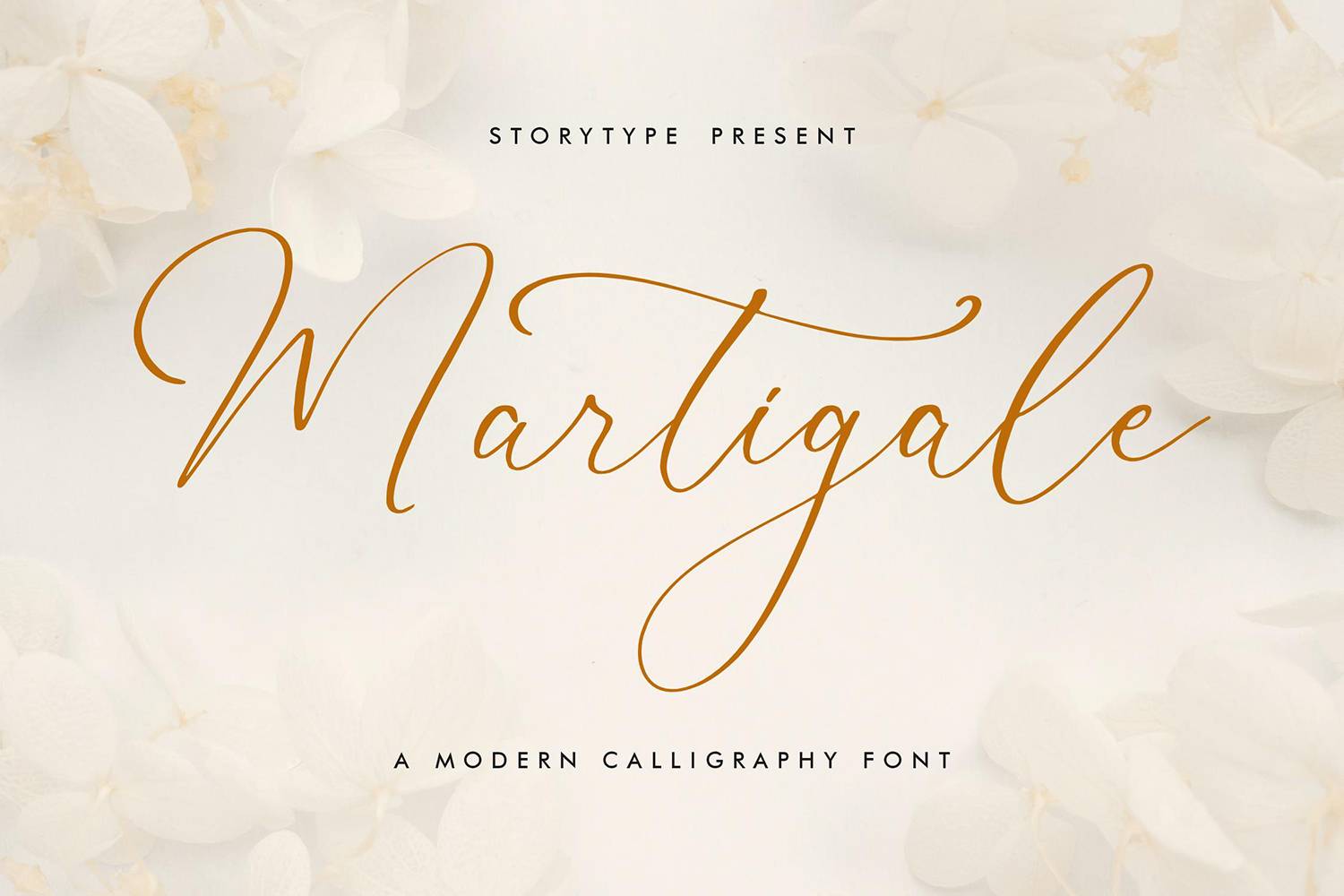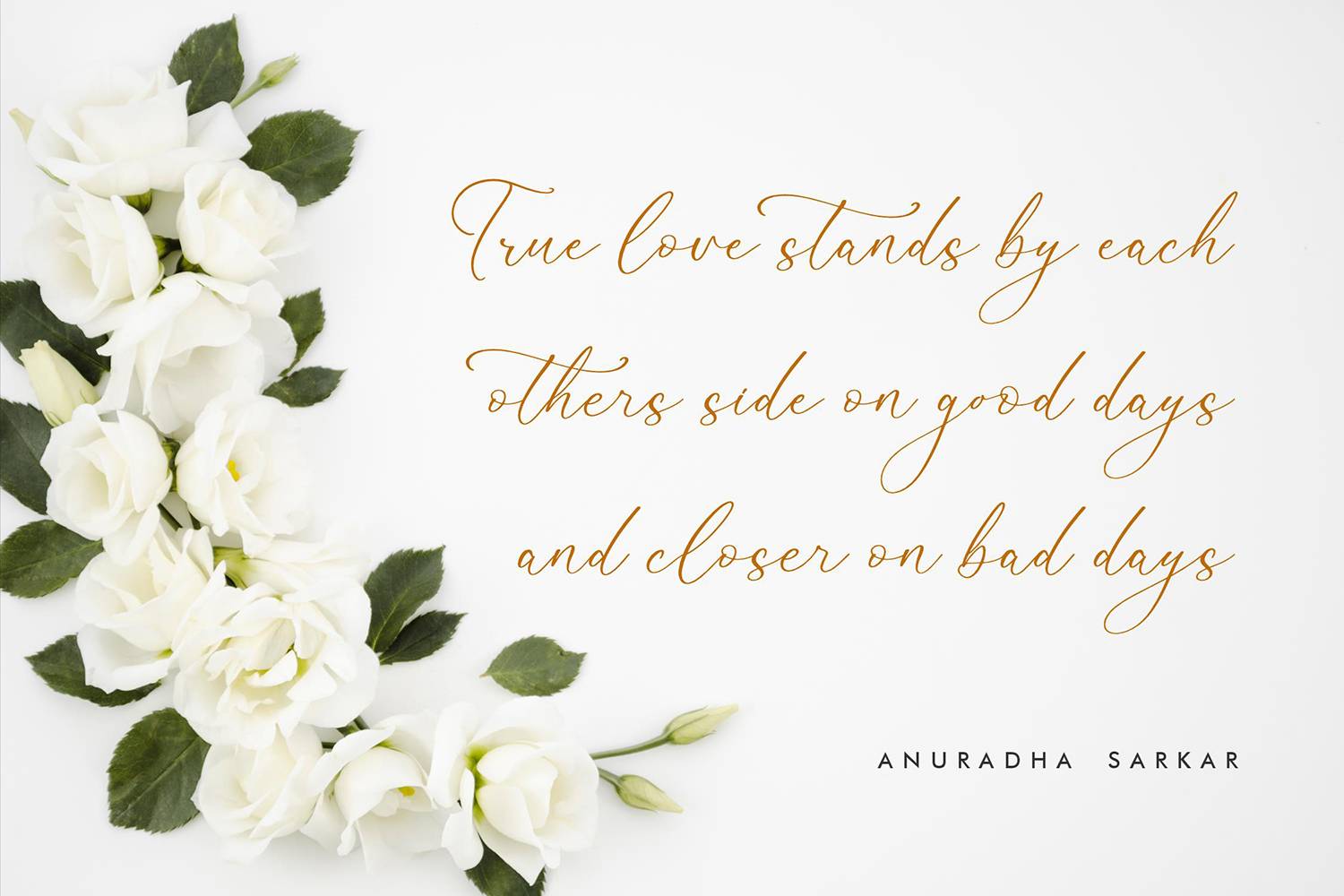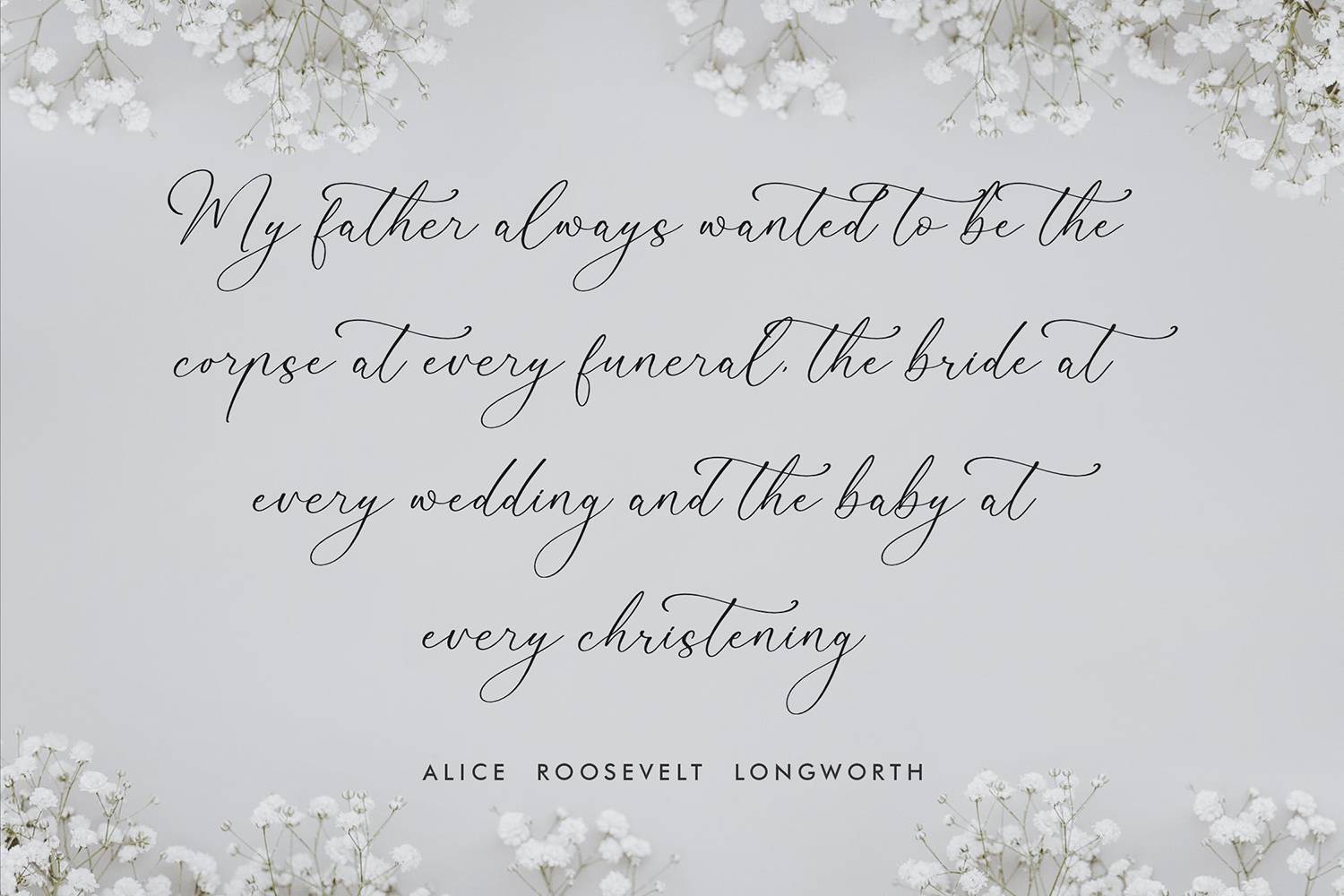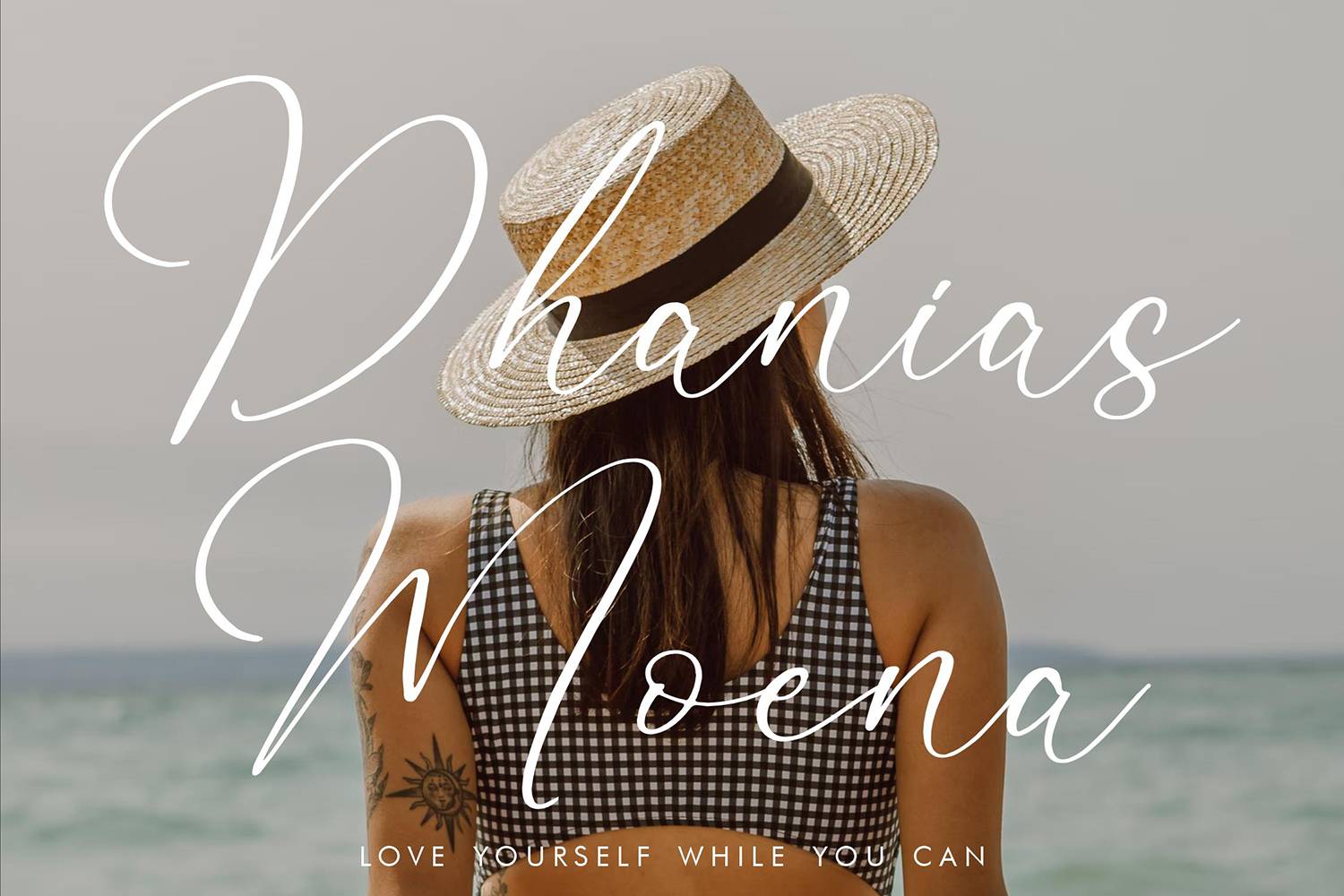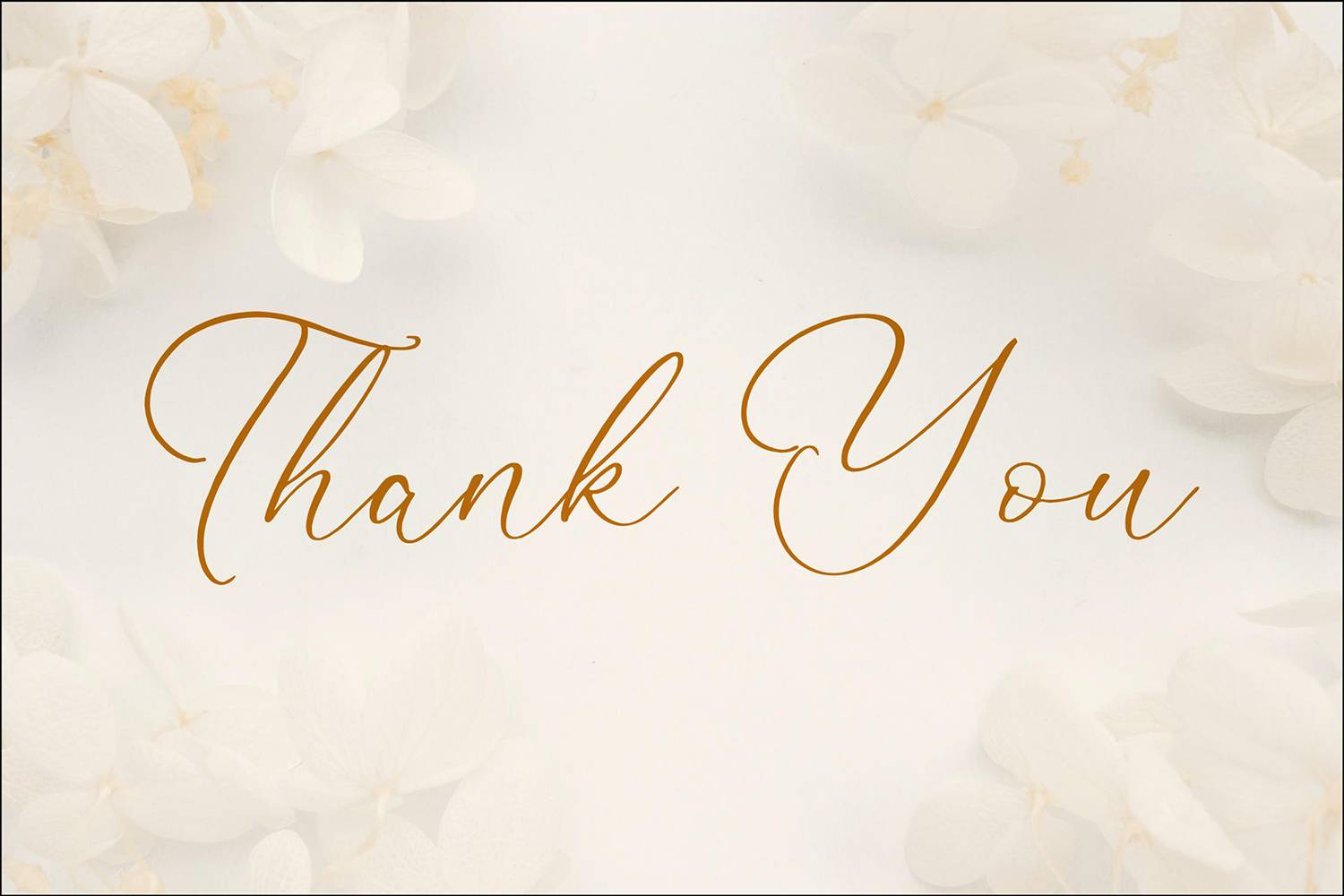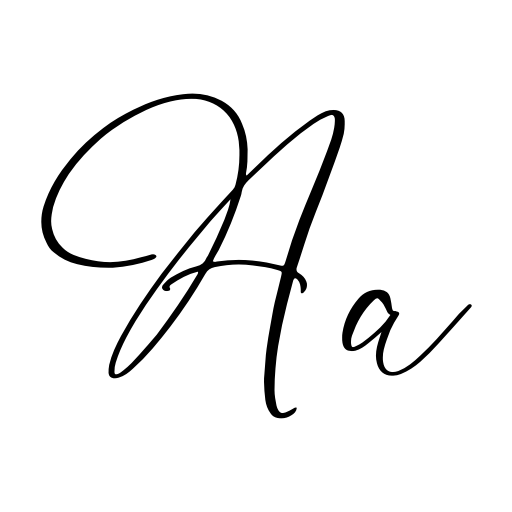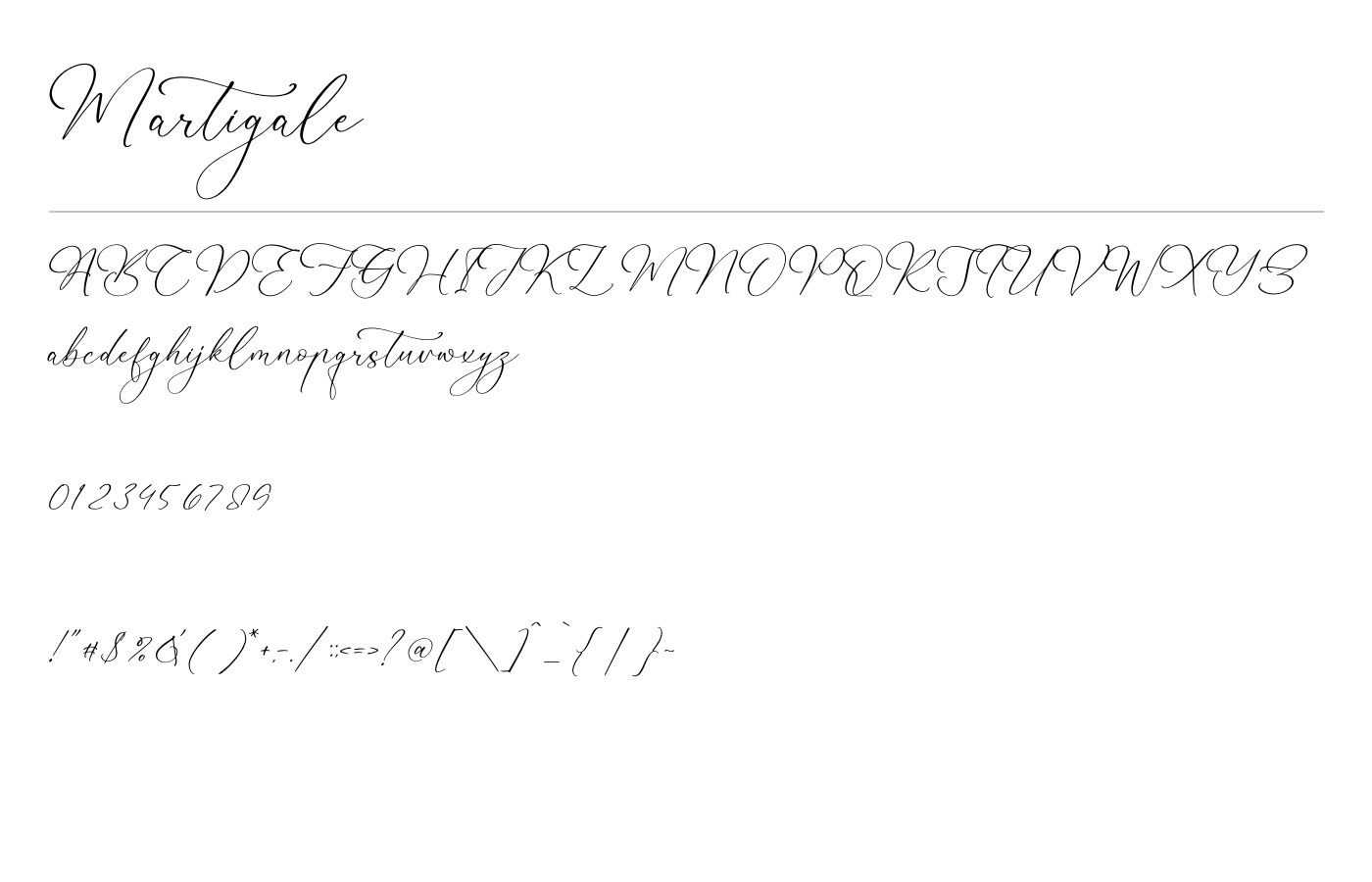
Martigale is an elegant, delicate script font characterized by its thin, flowing strokes and graceful, handwritten style. It features refined uppercase and lowercase letters with charming loops and subtle flourishes, perfect for adding a sophisticated and personal touch to wedding invitations, branding, and luxury designs. Its light weight and airy appearance make it ideal for decorative uses where a refined, romantic atmosphere is desired.
Martigale Font
About Martigale Font